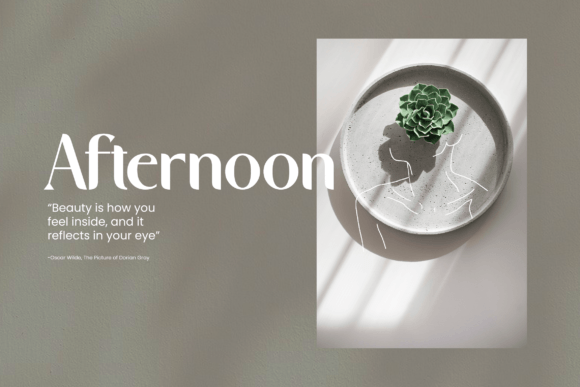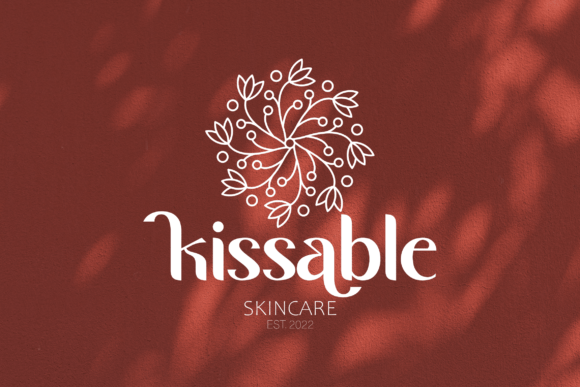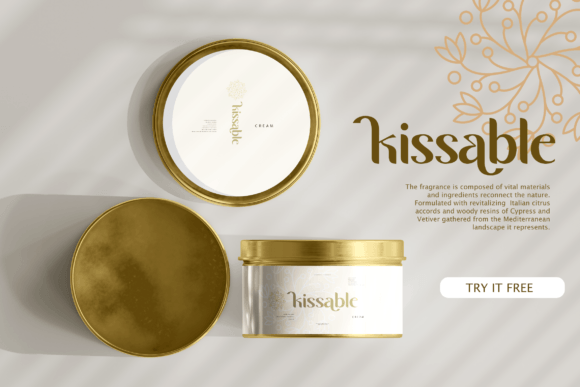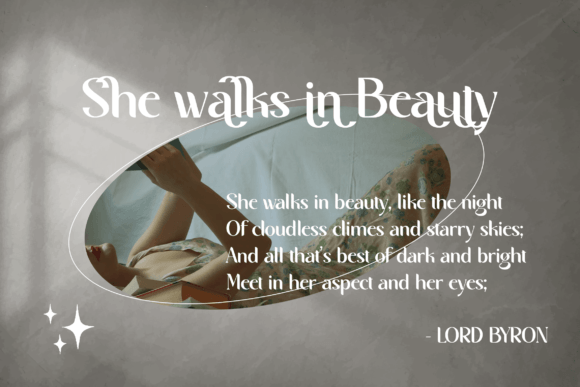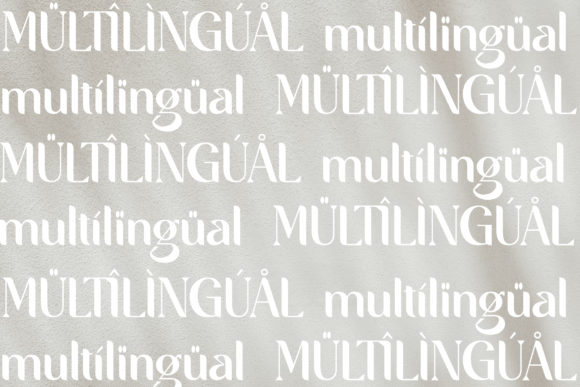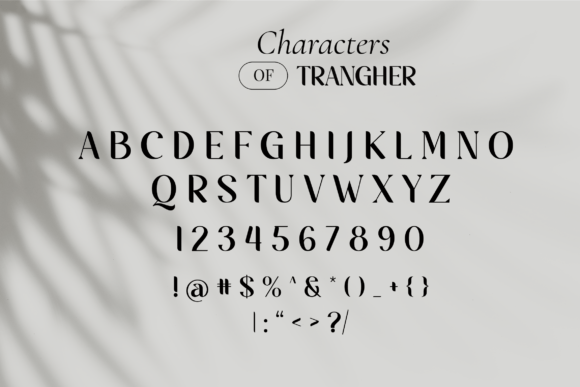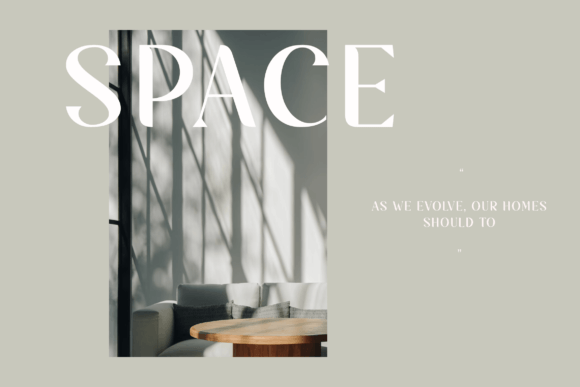
Trangher
Trangher: A Modern Stylistic Font for Eye-Catching Designs
Trangher is a modern stylistic font designed to instantly catch the eye and make your brand memorable. Whether you’re working on a magazine cover, a web page, or tackling a full rebranding project, Trangher can take your design to a higher level. Check it out and see the difference that a great font can make!
Key Features of Trangher
• Modern Design: Offers a contemporary look suitable for various applications.
• Stylistic Approach: Features unique characteristics that make designs stand out.
• Versatile Application: Ideal for a wide range of design projects across different media.
• Brand-Enhancing: Helps create memorable and impactful brand identities.
Ideal Uses for Trangher
Trangher’s unique characteristics make it particularly well-suited for:
When incorporating Trangher into your designs, consider these tips:
• Use for headlines or short phrases to showcase its stylistic features.
• Experiment with different sizes to highlight the font’s unique characteristics.
• Utilize its modern appeal to create designs that capture attention and enhance brand identity.
Trangher is an excellent choice for designers looking to add a modern and stylistic font to their typographic toolkit. Its ability to instantly catch the eye and make brands memorable makes it stand out in the world of typography. Whether you’re working on magazine covers, creating web designs, or developing comprehensive branding projects, Trangher offers the perfect blend of style and impact.
Furthermore, Trangher’s unique design allows it to shine in various contexts where a distinctive and memorable look is desired. From creative advertising campaigns to stylish product packaging, this font can elevate your projects with its eye-catching style. Its modern yet versatile appearance works particularly well in designs that aim to make a strong visual impact and leave a lasting impression on viewers.
In conclusion, Trangher is a font that truly captures the essence of modern, stylistic design in typography. Its versatility across different applications showcases its adaptability to various creative needs. For those looking to add a touch of contemporary flair to their work, Trangher can enhance themed creations with its distinctive style. It’s the perfect choice for designers seeking to make a bold, memorable impact across a wide range of creative projects.